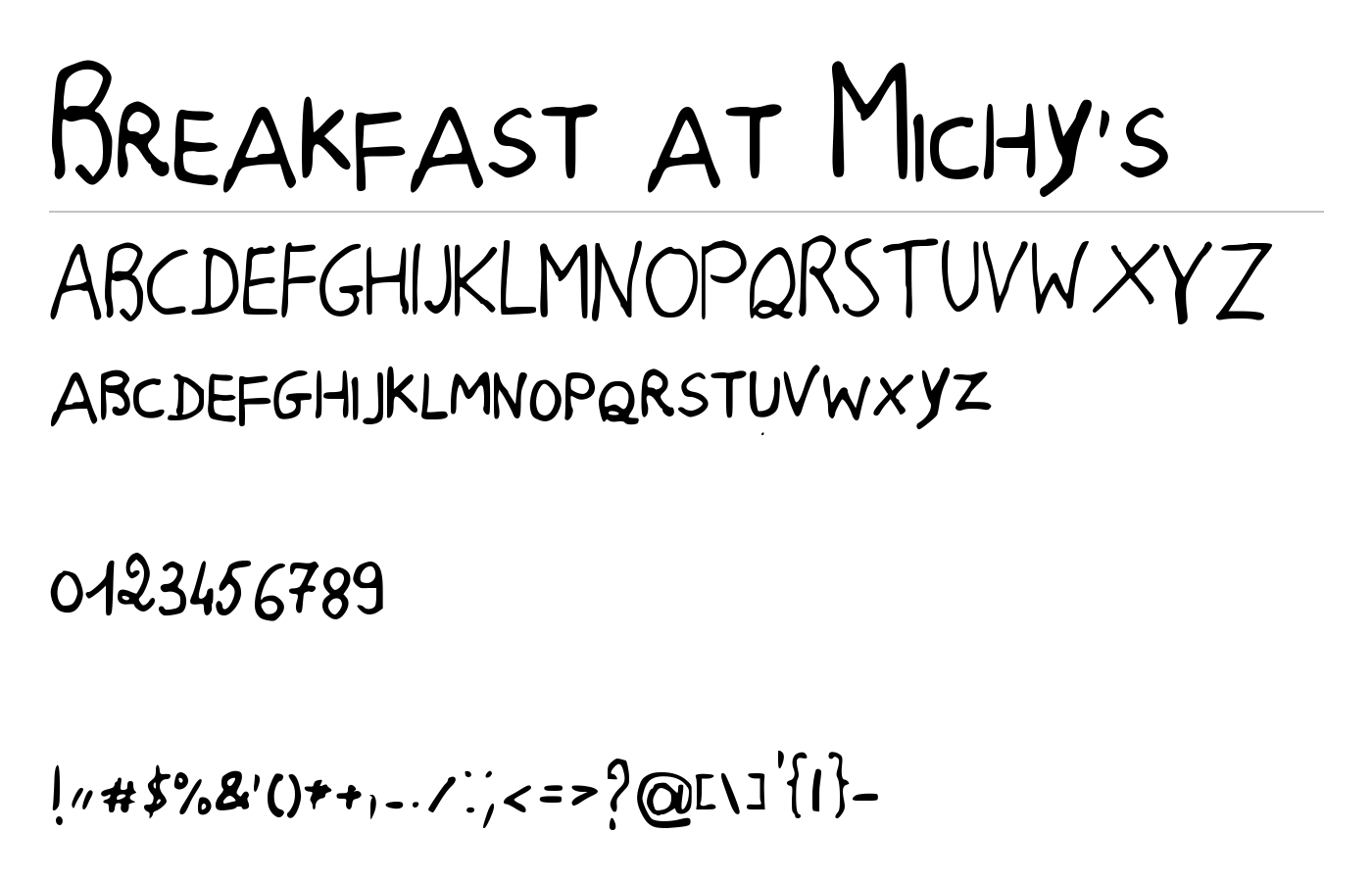
Breakfast at Michy's is a playful, handwritten sans serif font with a casual and quirky charm. Its irregular line weight and slightly uneven, narrow letterforms create an inviting, friendly feel perfect for informal designs, kids’ projects, or creative branding. This font works well for logos, packaging, and headlines where a personal, approachable style is desired.
Breakfast at Michy's Font
About Breakfast at Michy's Font